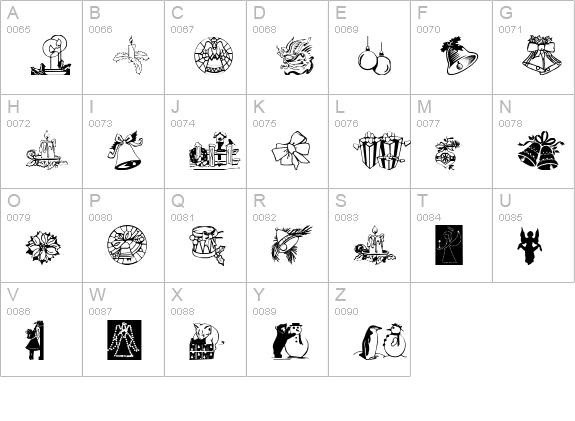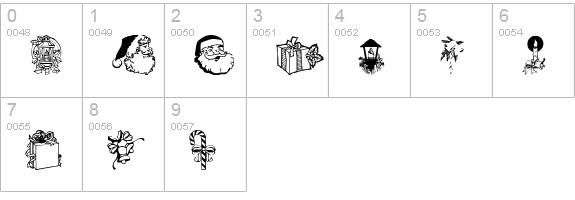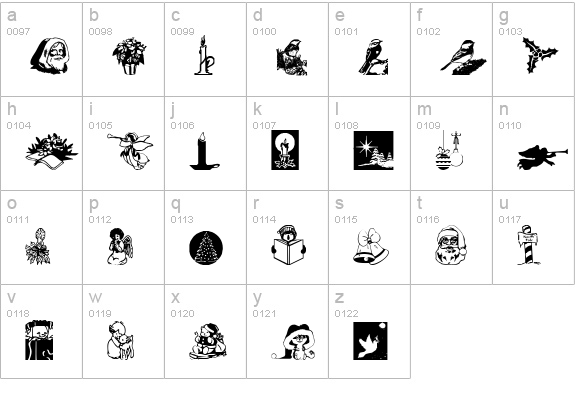
Noel Dingbats Font Details
Noel Dingbats font is a whimsical and versatile typeface that features a collection of charming and decorative dingbat characters. Perfect for adding a touch of playfulness to your designs, this font is sure to delight and captivate your audience. Whether you're creating holiday-themed projects, invitations, or simply looking to add some fun elements to your designs, Noel Dingbats has got you covered. The best part? Noel Dingbats font is available for free download at FontsMarket.com. Simply head over to the website to grab this delightful font and start incorporating its unique characters into your projects today. Don't miss out on the opportunity to add a touch of whimsy to your designs with Noel Dingbats font!